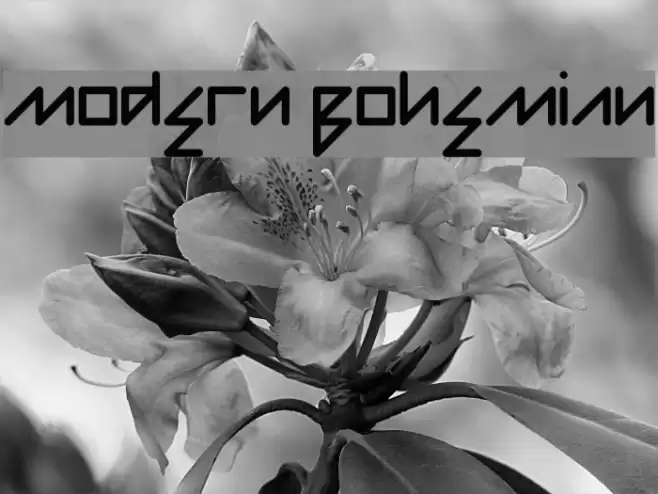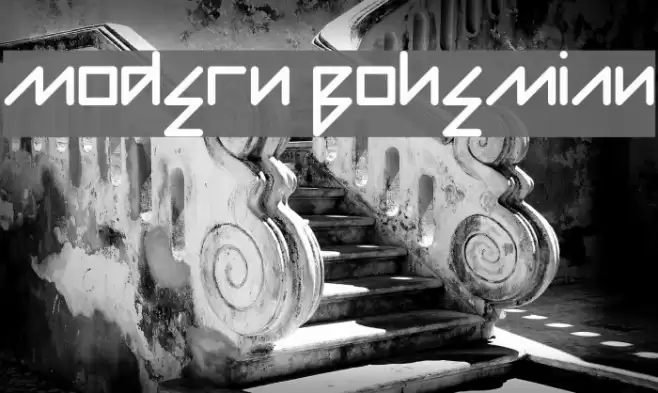
Modern Bohemian Font
Modern Bohemian Description
This font features a unique blend of modern and bohemian styles, characterized by its geometric shapes and angular lines. The uppercase and lowercase letters share a consistent design language, with sharp edges and a futuristic feel. The numerals and special characters maintain this aesthetic, offering a cohesive look across all glyphs. The font's distinct style makes it stand out, with a playful yet structured appearance that is both eye-catching and versatile.
A modern, geometric font with a bohemian twist, featuring angular lines and a cohesive design from Uncategorized fonts.
- Proposed Projects: Ideal for branding projects, album covers, fashion magazines, and creative posters where a modern and artistic touch is desired.
- Use Case: Logos, Posters, Headlines